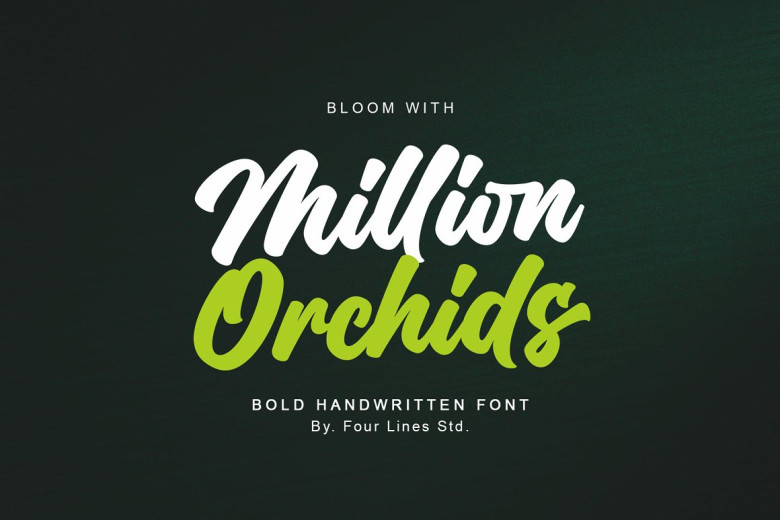
Million Orcids Font
Million Orcids features a retro handwritten script font in a bold style, perfect for unleashing creativity and inspiring innovation. Feel like having access to millions of orchis with Million Orcids’ retro handwritten font style! Add elegance and charm to any project by unleashing your creative side using Million Orcids font and bring designs to life using its retro handwritten font design!
Million Orcids Handwritten Script Font